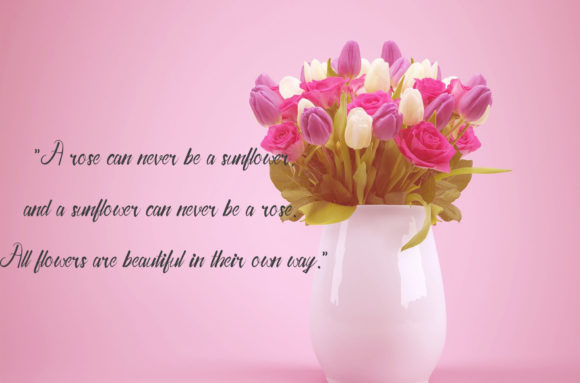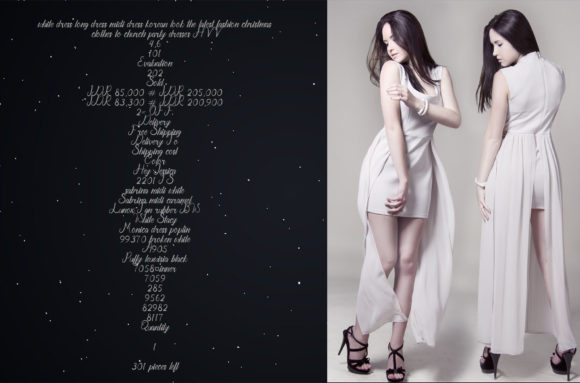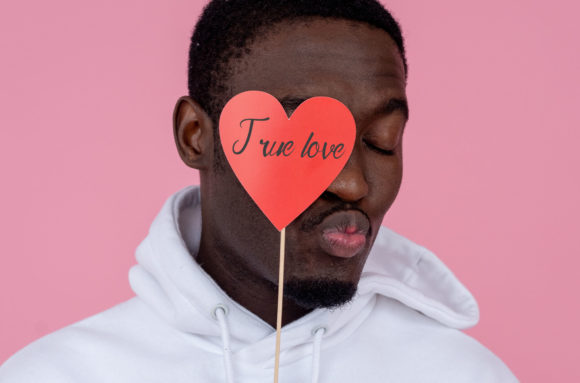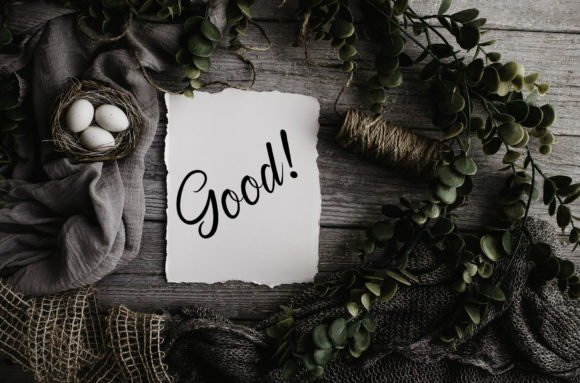
Introducing Angista Later Font: Elevate Your Designs with Elegance and Simplicity
In the world of typography, a font can make or break the aesthetic of a design. For designers and crafters looking for that perfect blend of elegance and simplicity, Angista Later Font is a game-changer. This beautiful script font is versatile, making it suitable for a wide range of projects, from informal and formal creations to quotes, logos, card writing, and even wedding invitations.
The Versatility of Angista Later Font
Angista Later Font stands out due to its adaptability. Whether you’re working on a casual project or a more formal one, this font fits seamlessly into any design. Its simple vibe is what makes it truly special, allowing your designs to look impeccable without overpowering them. The clean lines and elegant curves of Angista Later Font ensure that your message is conveyed with clarity and style.
Perfect for Quotes, Logos, and More
One of the key strengths of Angista Later Font is its performance in various applications. For quotes, it adds a touch of sophistication and thoughtfulness. When used in logos, it can help brands appear more approachable and refined. For card writing, it brings a personal and warm feel, making the message more impactful. And for wedding invitations, it sets the tone for a classy and memorable event.
Why Choose Angista Later Font?
There are several reasons why designers and crafters are gravitating towards Angista Later Font:
- Elegance: It brings an air of elegance to any design, making it perfect for projects that require a sophisticated look.
- Simplicity: Its simple design ensures that it complements the content without overwhelming it.
- Versatility: It can be used in a variety of projects, from formal to informal, without losing its impact.
- Readability: The font is easy to read, making it ideal for both short phrases and longer texts.
Tips for Using Angista Later Font
To make the most out of Angista Later Font, consider the following tips:
- Pair it with Other Fonts: While Angista Later Font is beautiful on its own, pairing it with complementary fonts can add depth and interest to your design.
- Experiment with Sizes: Don’t be afraid to play with different sizes to create visual hierarchy and emphasis in your design.
- Use it for Headings and Subheadings: Its elegant look makes it perfect for headings and subheadings, adding a touch of class to your content.
- Consider the Color: Choose a color that complements your brand or design theme. The font works well in both bold and subtle colors.
Angista Later Font is a beautiful addition to any designer’s toolkit. Its elegance, simplicity, and versatility make it an ideal choice for a wide range of projects. Whether you’re creating quotes, logos, card writings, or wedding invitations, this font is sure to elevate your designs. With its impeccable style and readability, Angista Later Font is set to become a favorite among designers and crafters looking to add a touch of sophistication and elegance to their work.
Incorporate Angista Later Font into your next project and experience the difference it can make. Its simple yet elegant vibe is sure to leave a lasting impression on your audience.